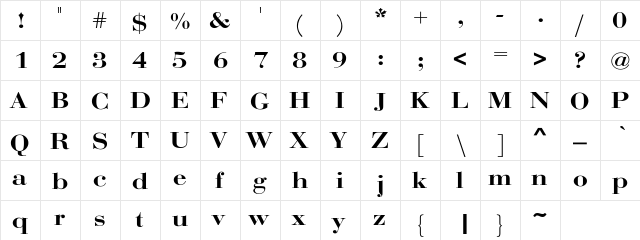
Hensley Extended-Bold Regular
Design Context for Hensley Extended-Bold Typeface
Hensley Extended-Bold takes a measured approach to typography — its balanced proportions and neutral character make it a reliable workhorse for both digital and print work. Its bold stroke weight gives it real presence on the page.